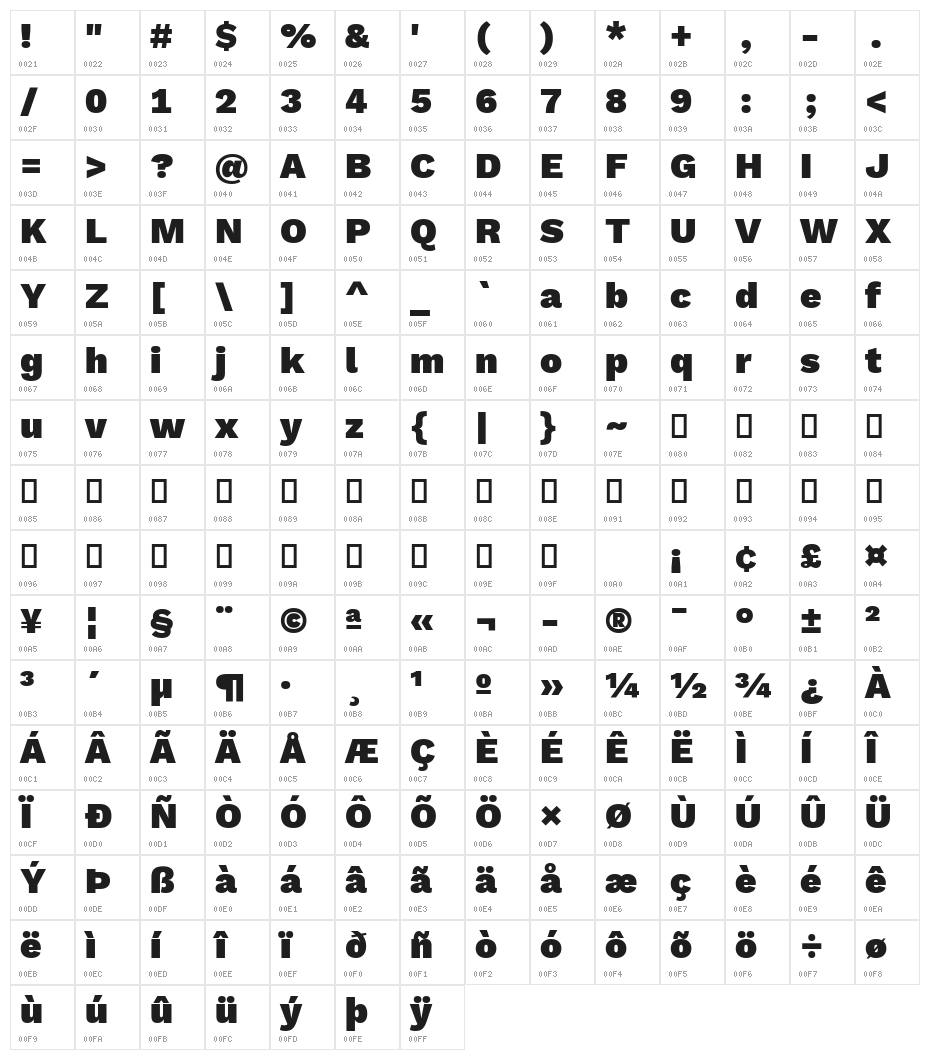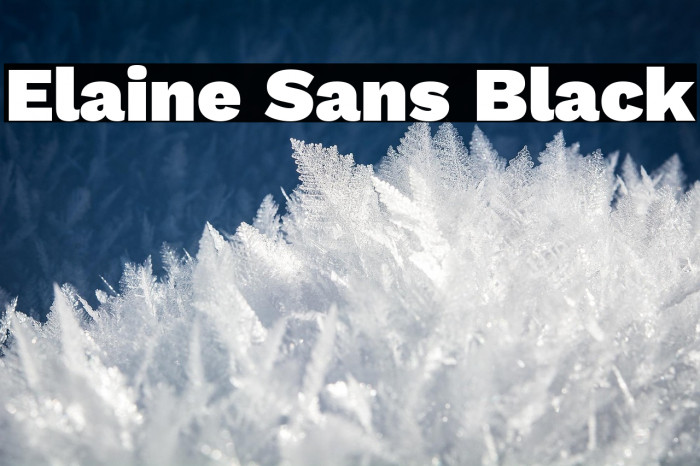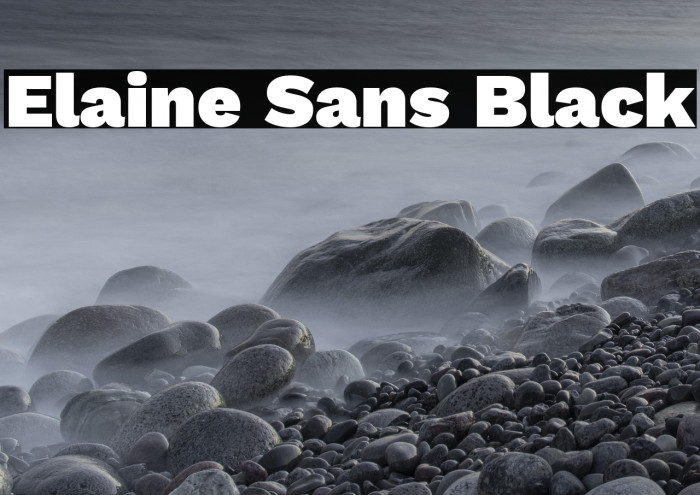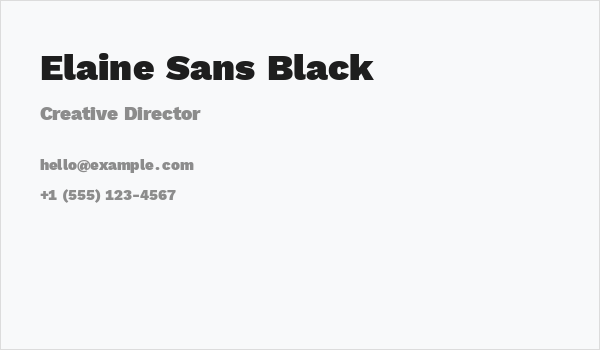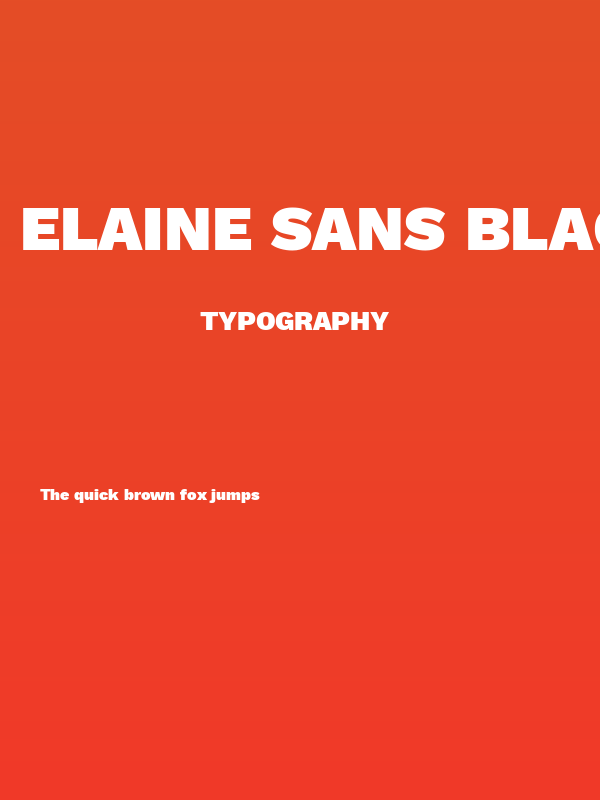
Elaine Sans Black Font
Elaine Sans Black Description
This font features a bold and robust sans-serif style, characterized by its strong geometric shapes and uniform stroke widths. The uppercase letters are particularly striking, with a solid presence that commands attention. The lowercase letters maintain a consistent weight, ensuring readability while retaining a modern aesthetic. The numerals are clear and straightforward, making them ideal for both display and informational purposes. Special characters are well-integrated, offering versatility for various design needs. Overall, this font exudes a contemporary and professional vibe, suitable for a wide range of applications.
| Proposed Projects | Ideal for branding, advertising, headlines, and digital media projects. |